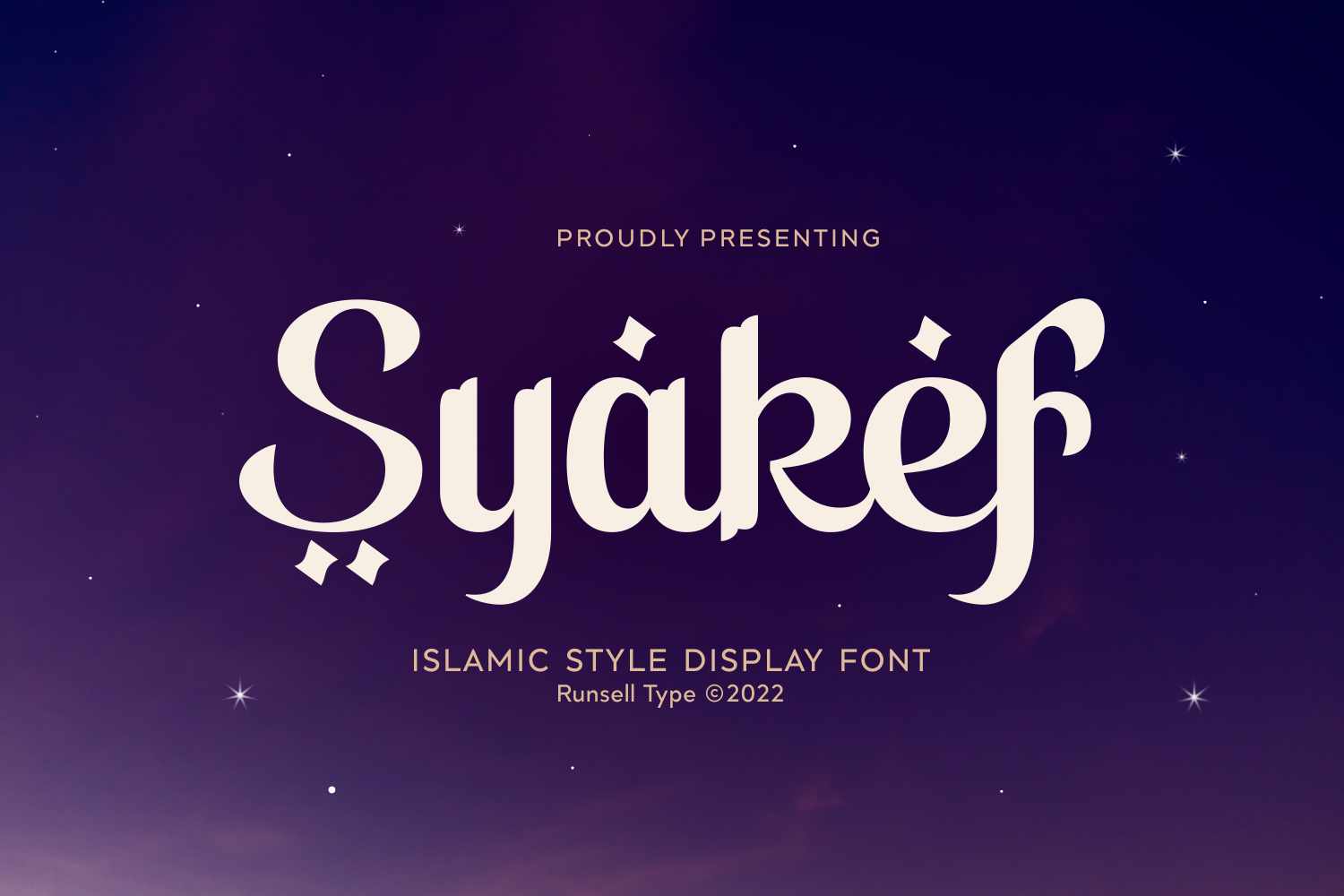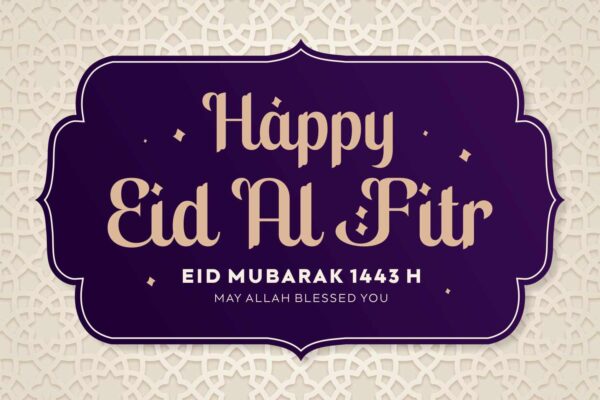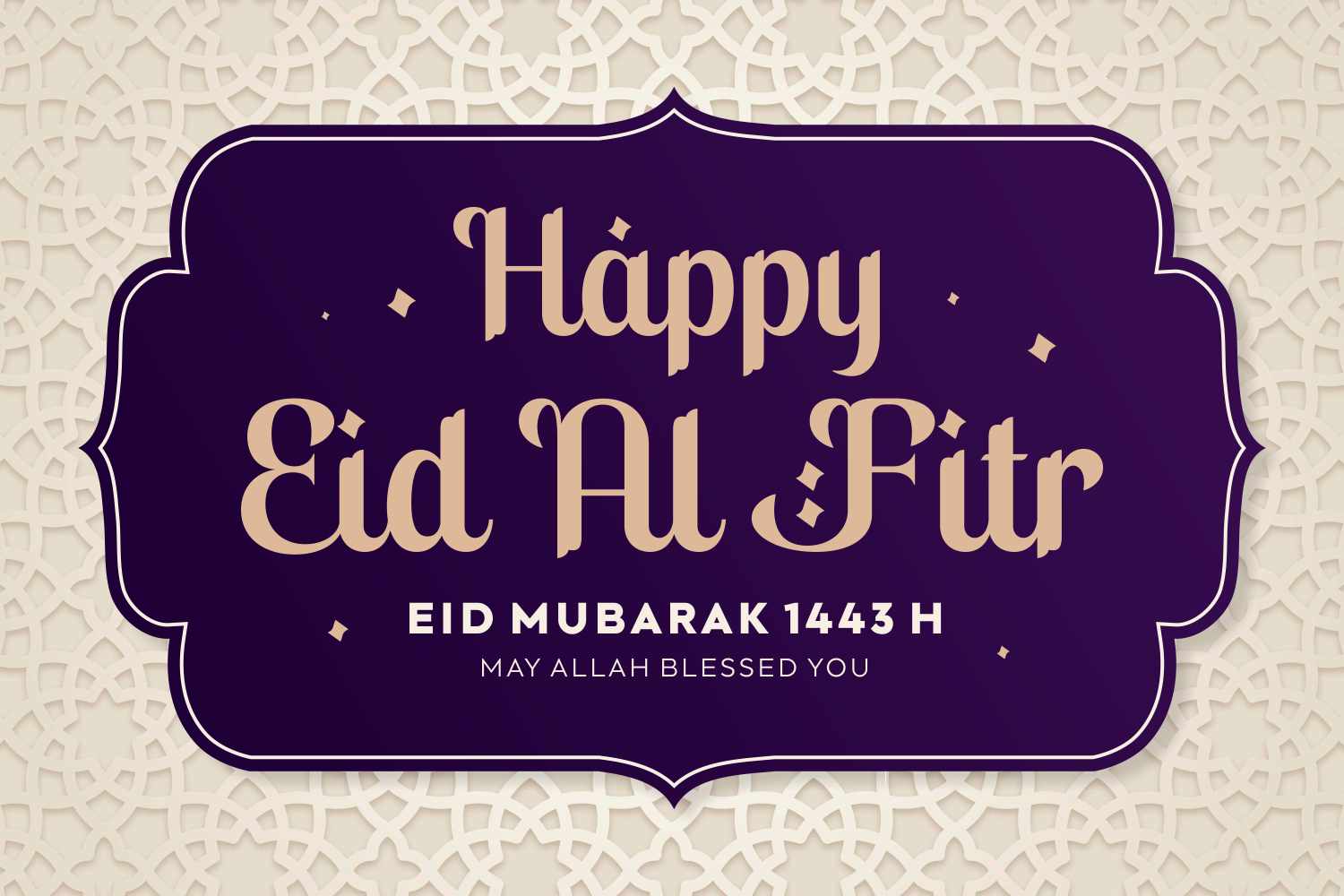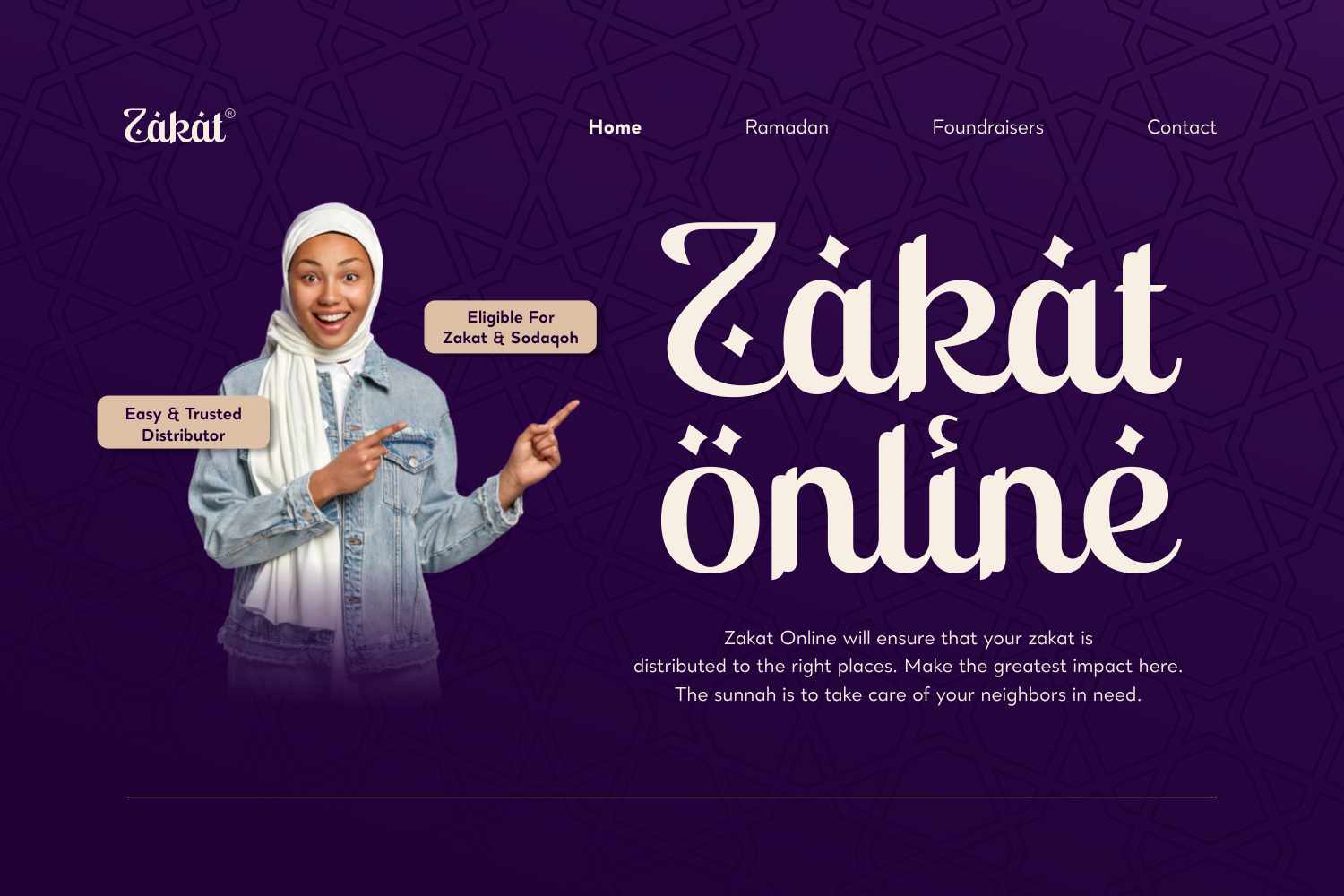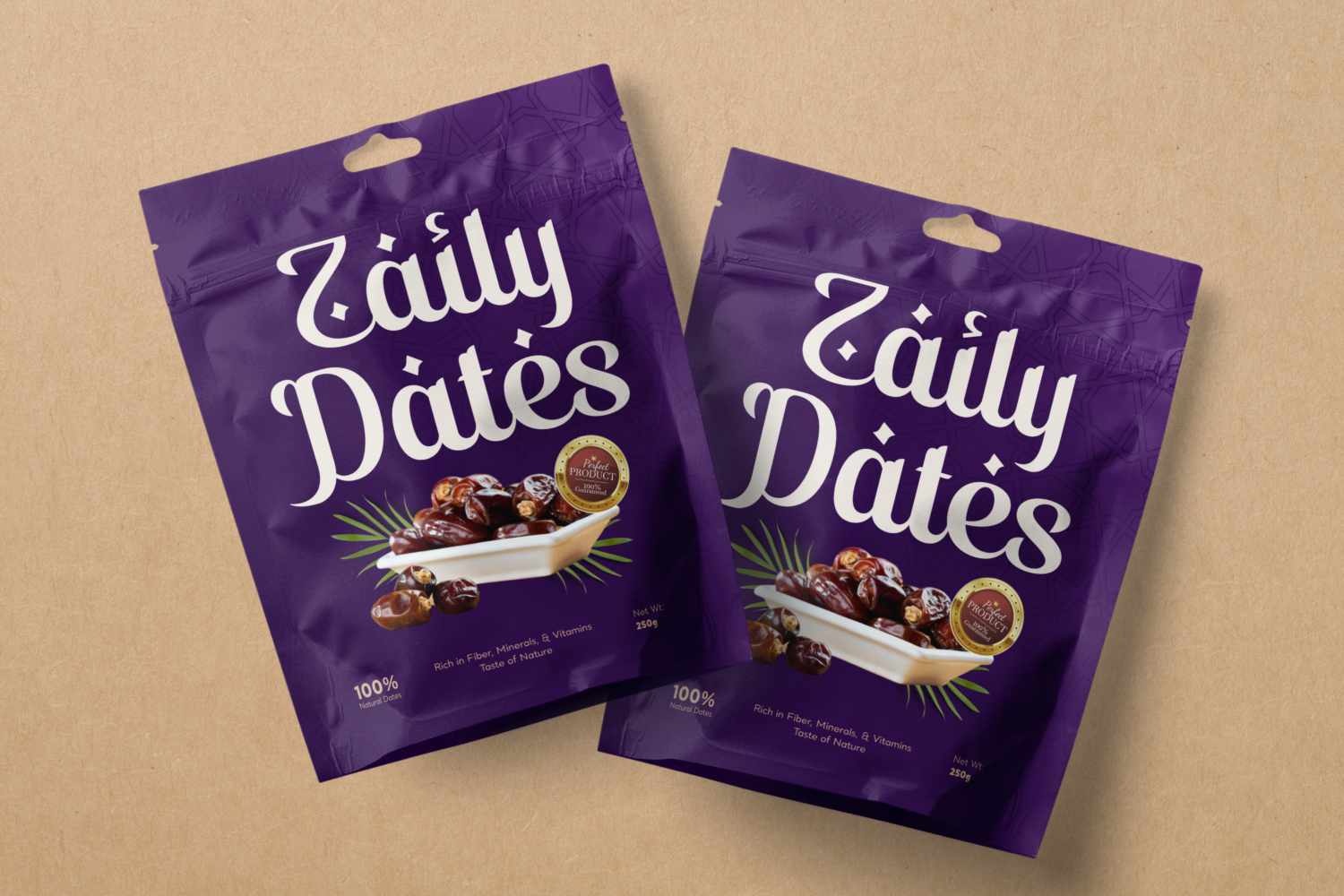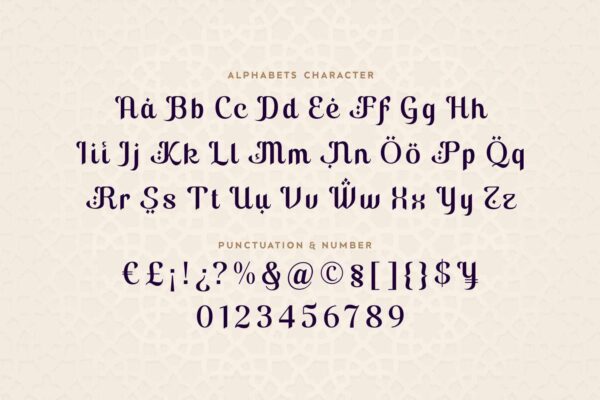
Introducing Syakef, an Islamic-style display font that combines modern elegance with traditional Middle Eastern flair. Each character is carefully crafted to include decorative diacritic elements, giving your typography a unique spiritual identity. Perfect for Islamic branding, Ramadan campaigns, Eid Mubarak greetings, and halal product packaging.
Syakef supports multilingual characters, numerals, and punctuation, making it highly versatile for both print and digital use. Whether you’re designing a festive banner, packaging dates, or building a zakat platform interface, Syakef adds a warm, respectful, and authentic touch to your design work.
Syakef